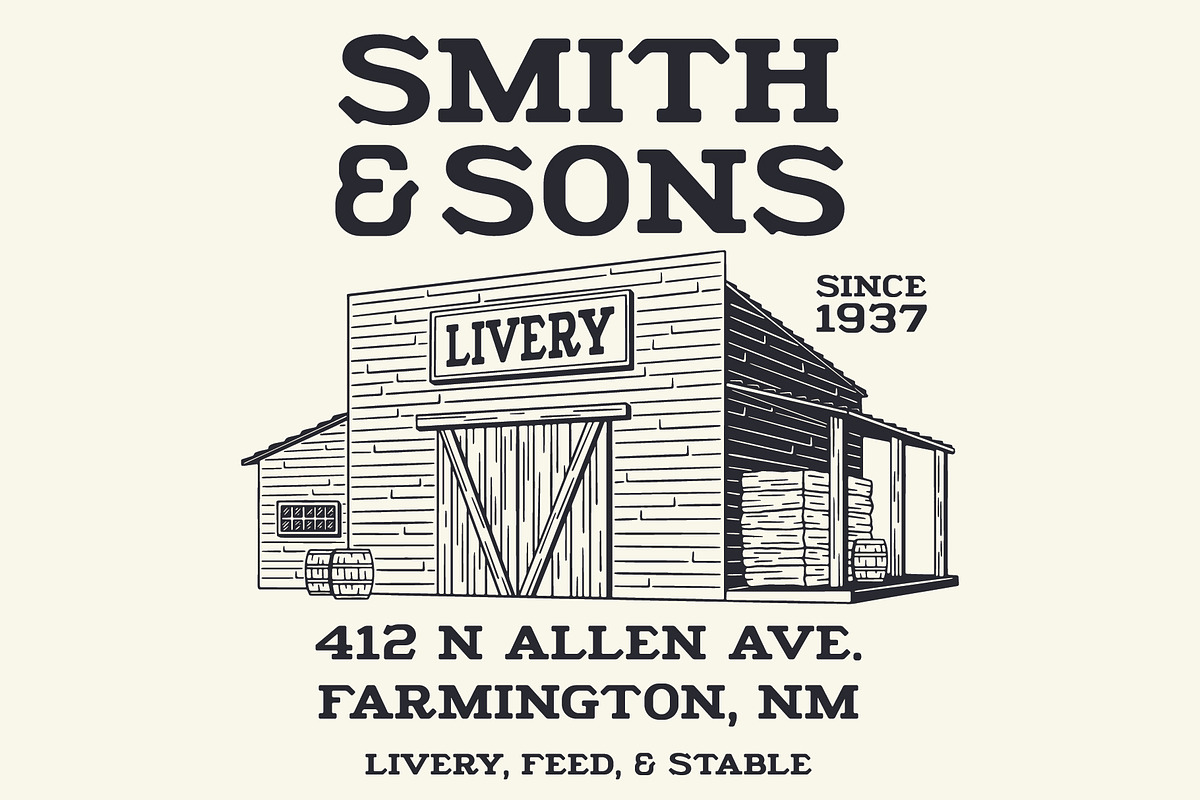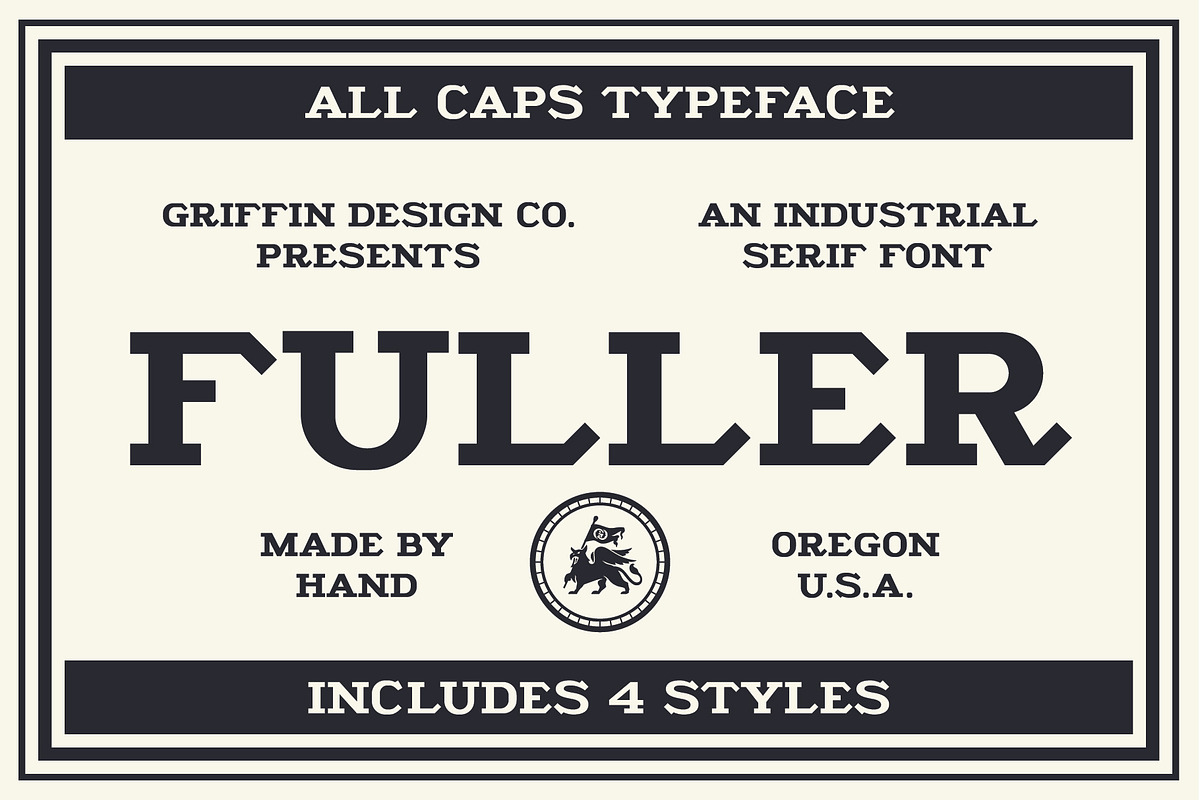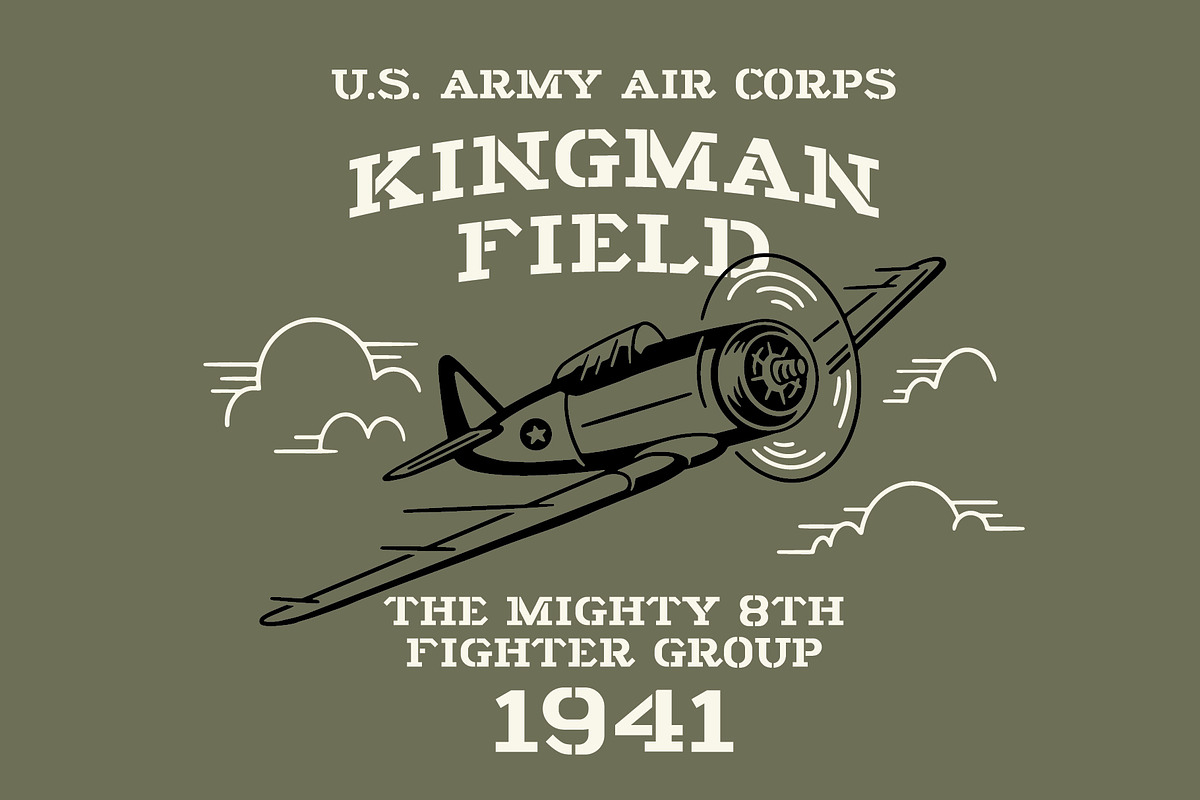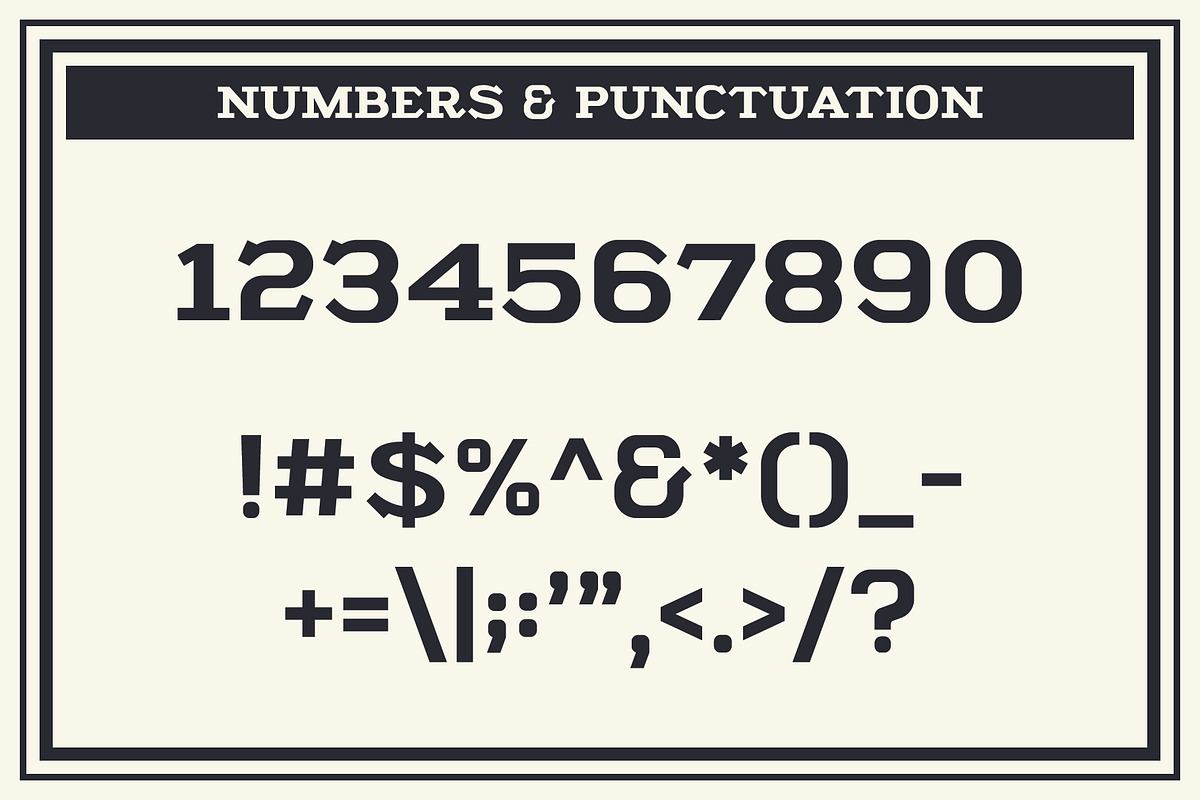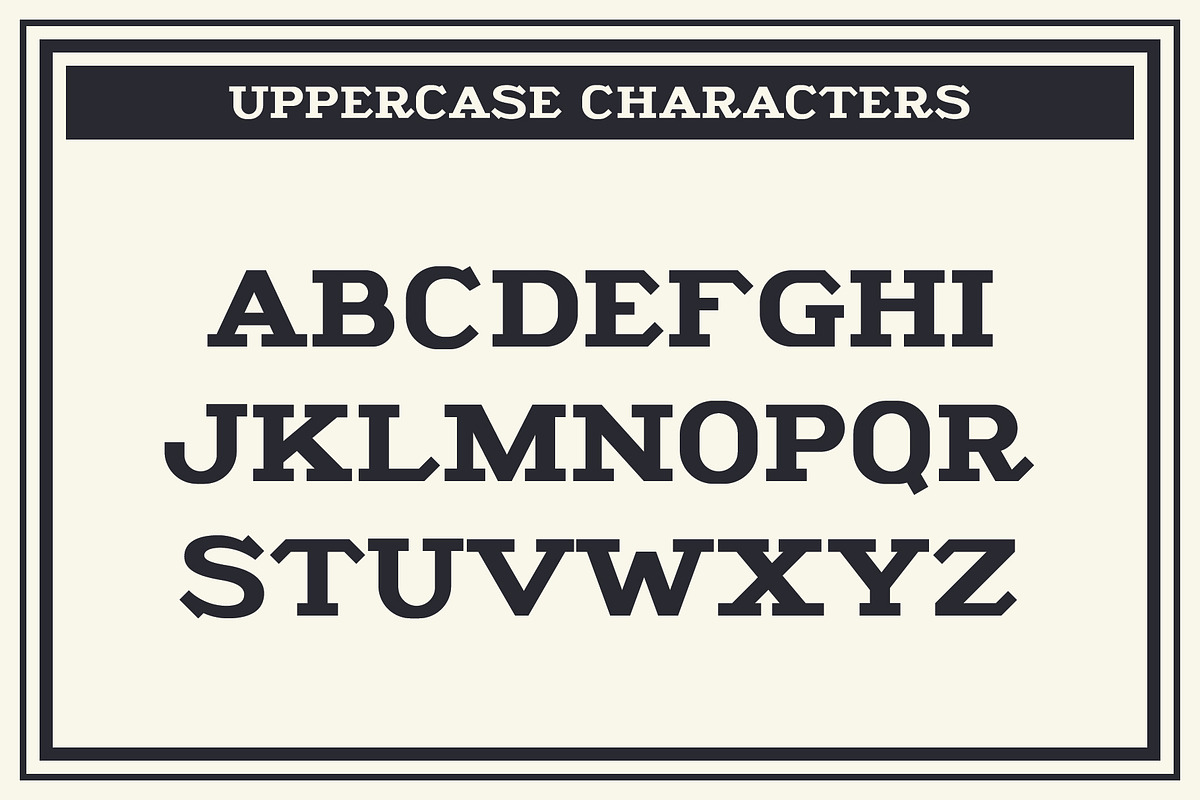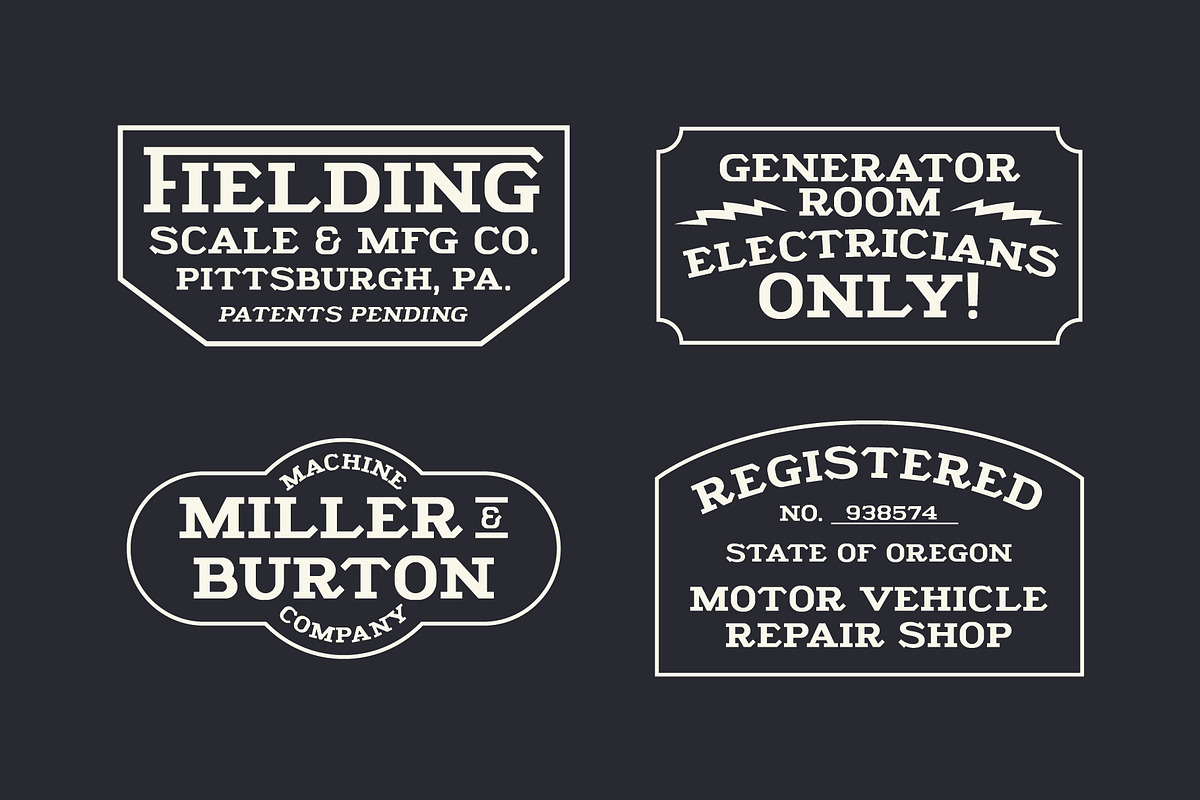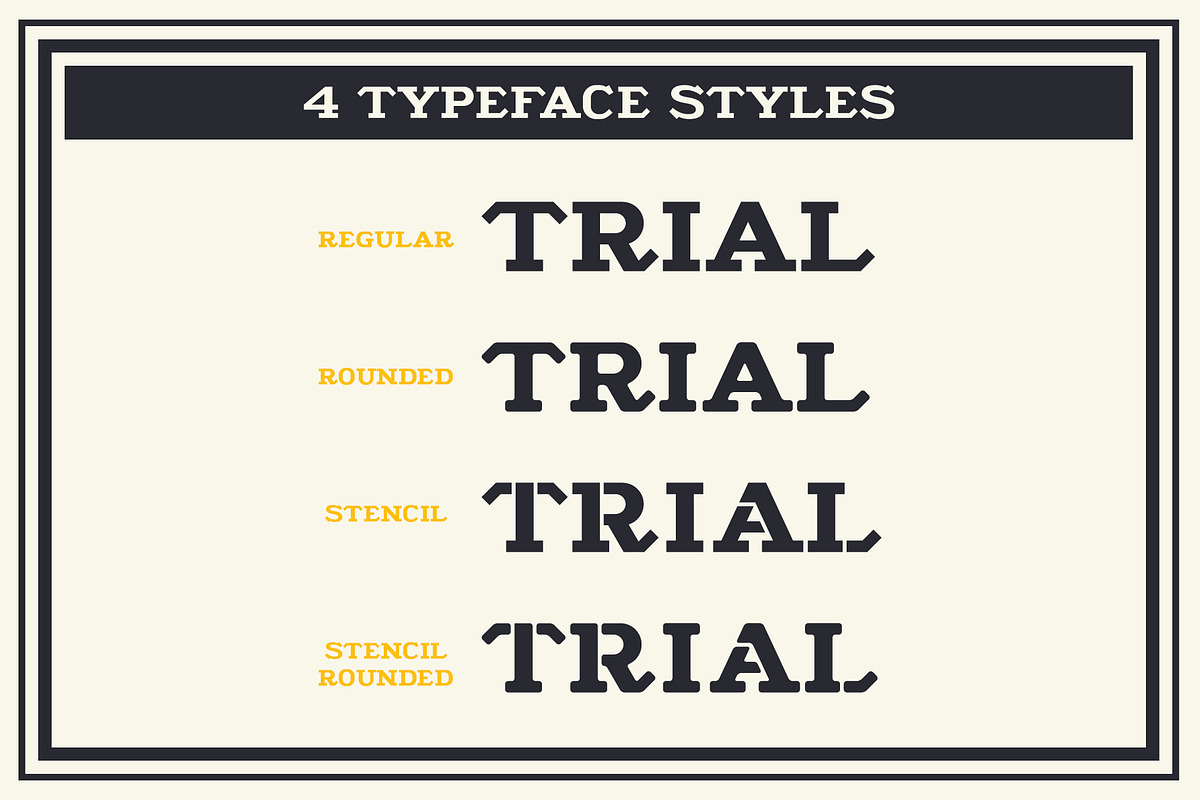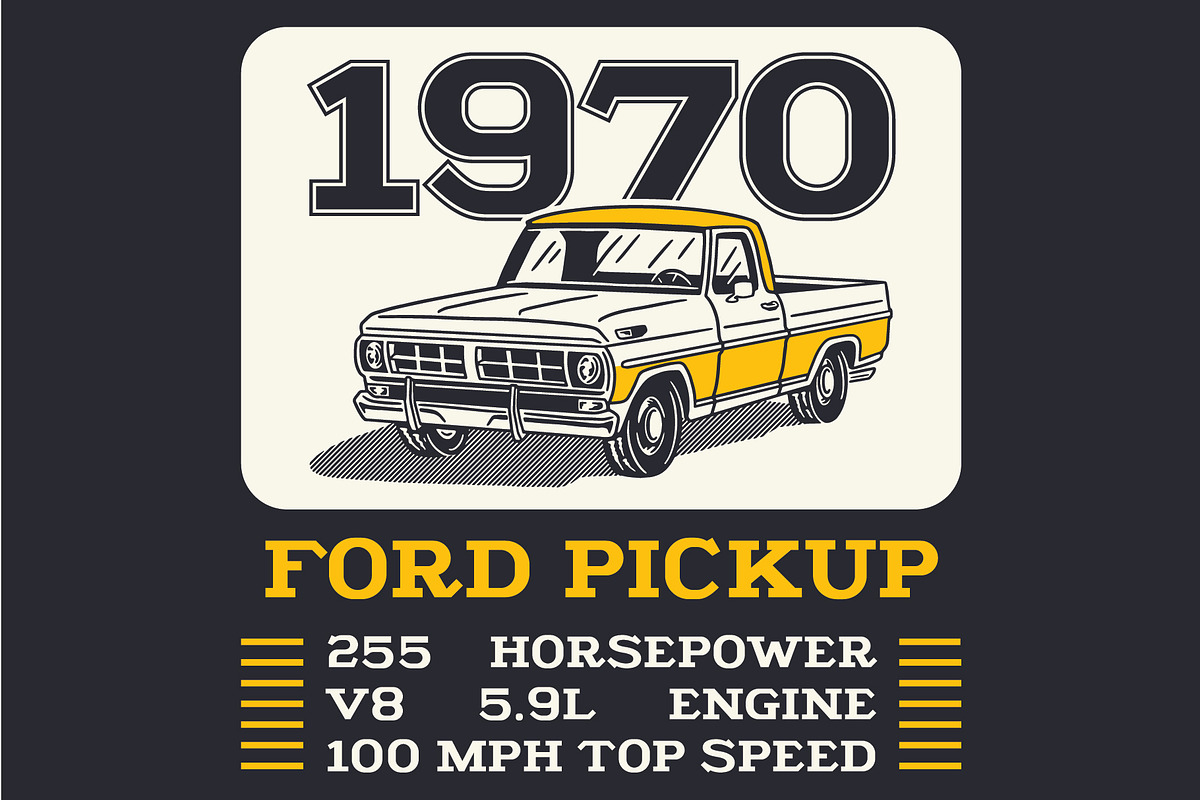
GDC Fuller Typeface
GDC Fuller is an industrial, serif font meant for hard use. This font includes Uppercase Characters, Numbers, Punctation, and comes in 4 different Styles.